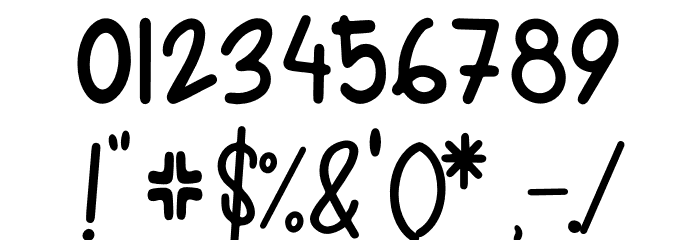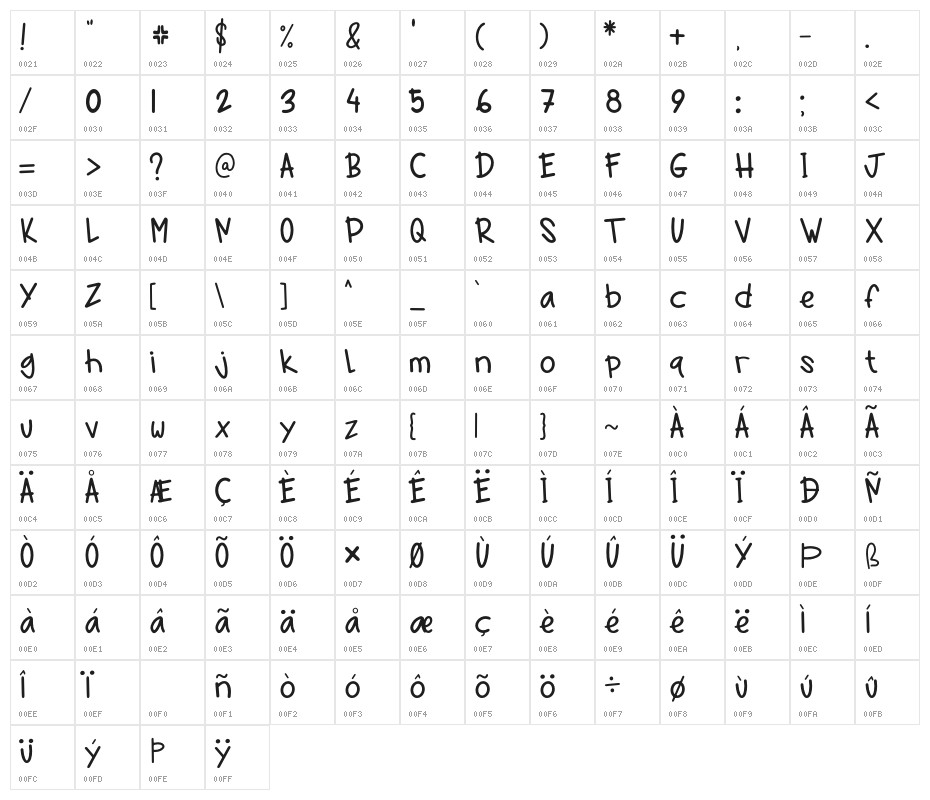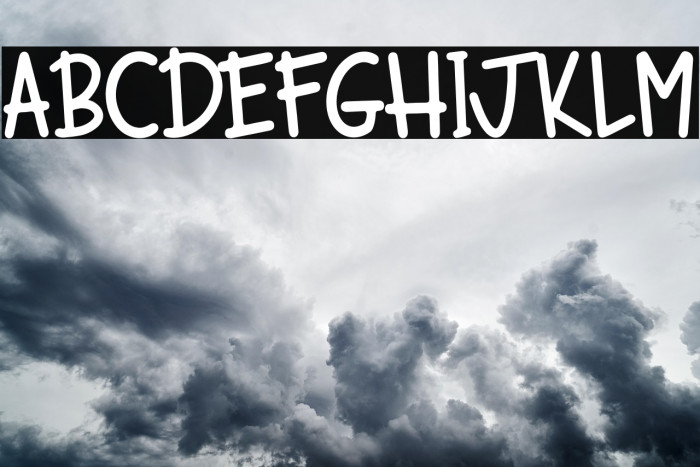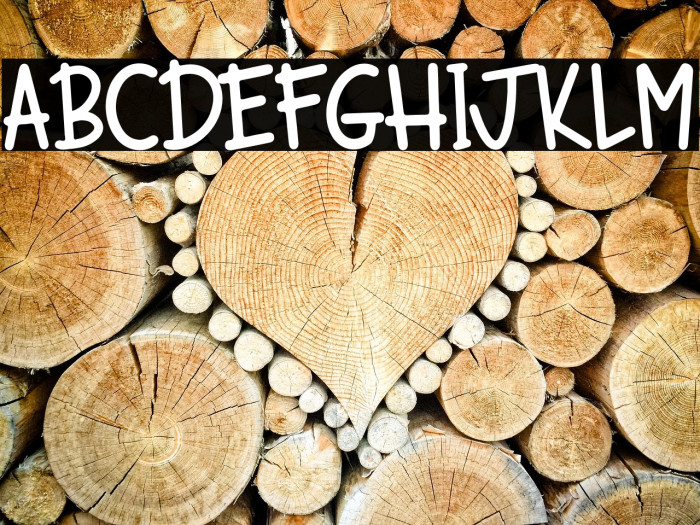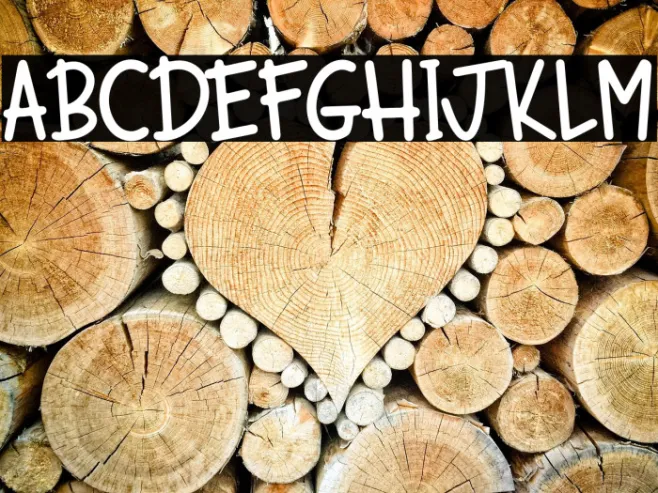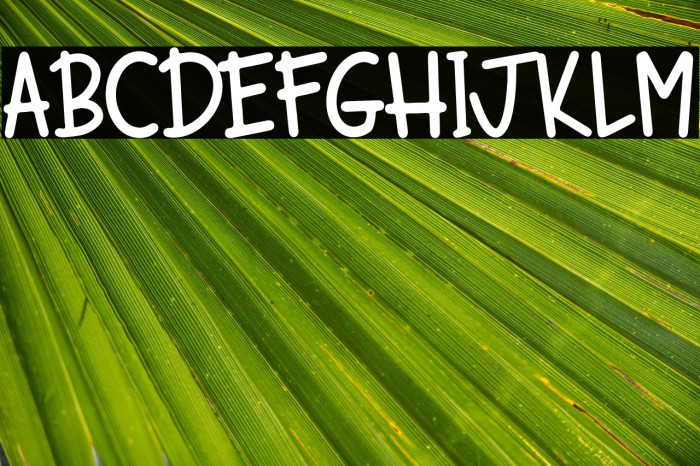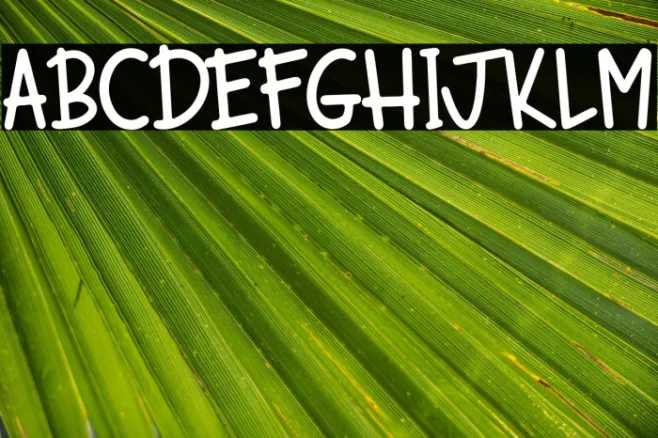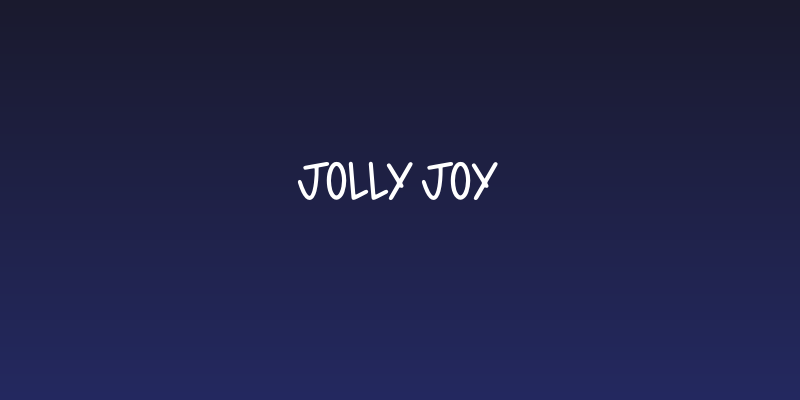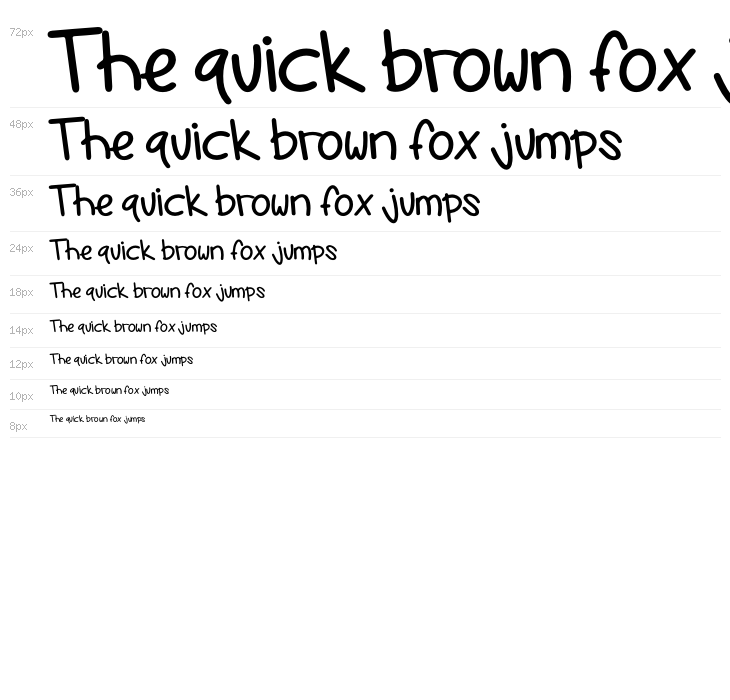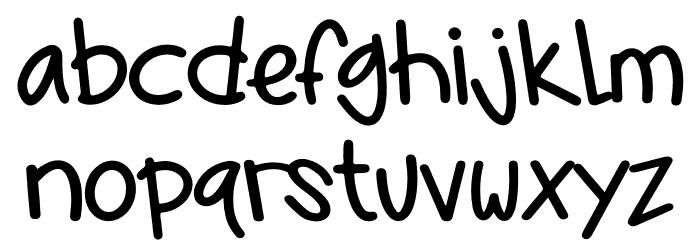
Jolly Joy Font
Jolly Joy Description
This playful and whimsical font features a handwritten style with a casual and friendly appearance. The letters are slightly irregular, adding a sense of spontaneity and charm. The strokes are consistent in thickness, giving it a uniform look while maintaining a lively character. The rounded edges and smooth curves enhance its approachable and informal feel, making it ideal for projects that require a personal touch. The font includes both uppercase and lowercase letters, numerals, and a variety of special characters, ensuring versatility in its application. Its design is perfect for conveying a sense of joy and creativity, suitable for children's books, playful branding, and casual invitations.
| Proposed Projects | Ideal for children's books, playful branding, casual invitations, and creative projects. |